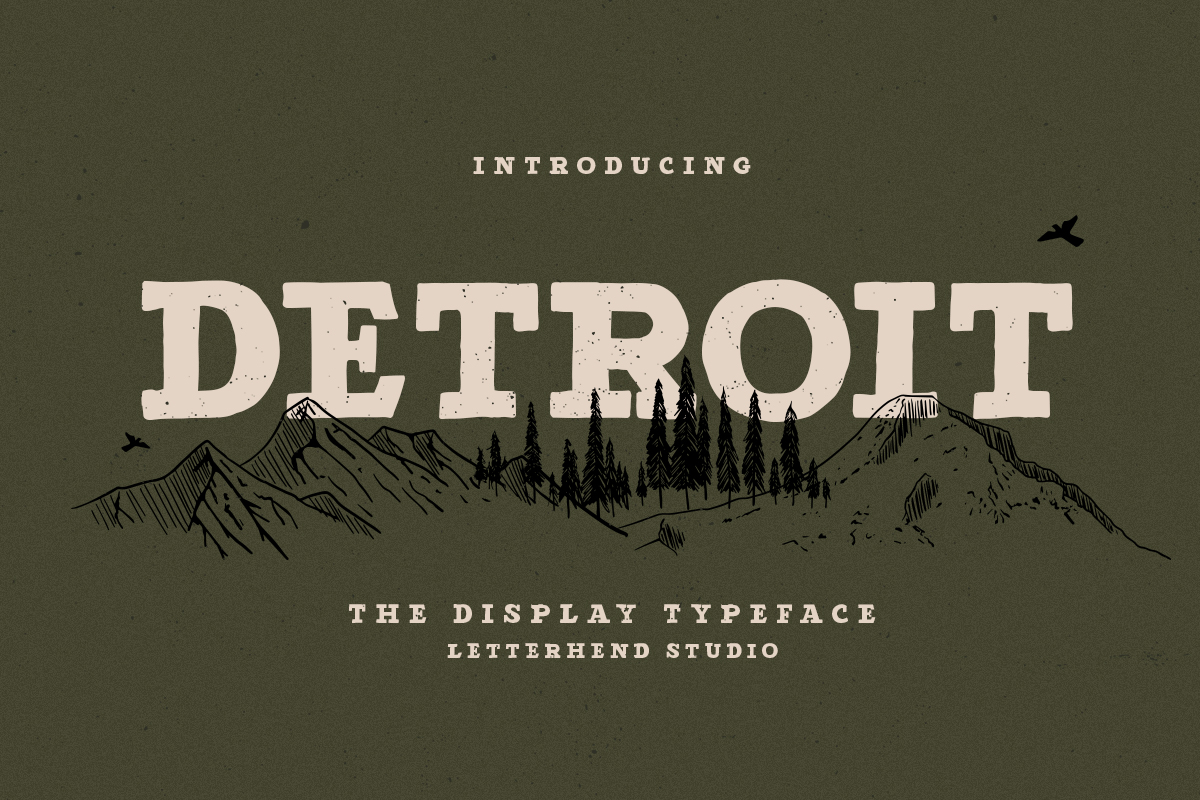
Detroit Font
Perfect for automotive branding, sports logos, apparel designs, posters, and bold advertising.
The Detroit Font excites designers with its strong, industrial letterforms and dynamic energy, embodying the grit and power of its namesake city.
The Detroit Font Free Download is a bold display typeface designed for impactful headlines and powerful branding. Its sharp lines and sturdy proportions give it a commanding presence, perfect for designs that need to convey strength, speed, and authority. Whether you’re creating team logos, event posters, or product packaging, Detroit delivers maximum impact.
One of the key strengths of Detroit Font is its versatility—it works equally well in modern, urban-inspired designs and vintage, retro-themed layouts. Its balanced spacing ensures clarity while maintaining a distinctive style.
In branding, Detroit communicates toughness, energy, and reliability. It pairs excellently with strong color contrasts, metallic textures, and bold photography, making it ideal for sports brands, automotive companies, and lifestyle apparel.
For digital projects, this font enhances web banners, promotional graphics, and social media content with its striking, confident style. Its bold character ensures your message stands out in any visual space.